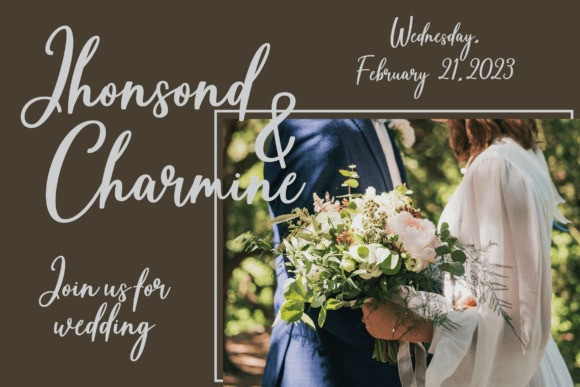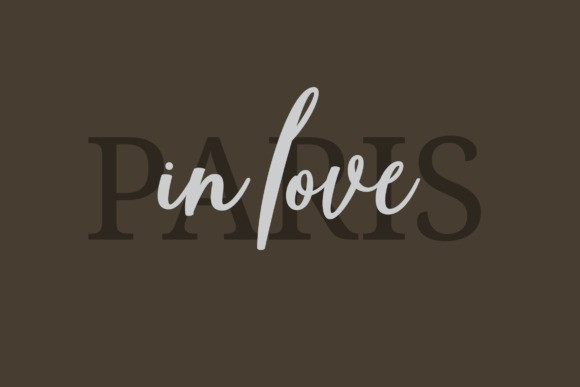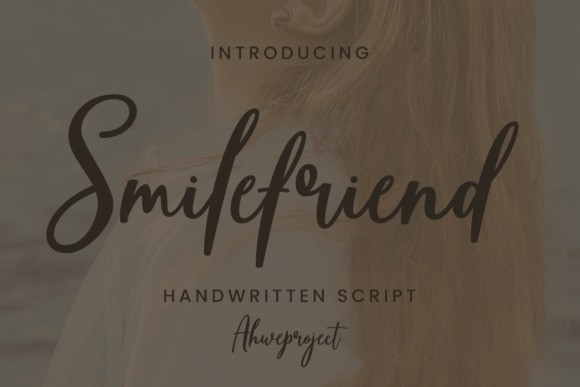
Smilelfriend Font
Smilelfriend Script Font is a beautiful and romantic script font. It looks stunning on wedding invitations, thank you cards, quotes, greeting cards, logos, business cards, and every other design which needs a lovely handwritten touch.